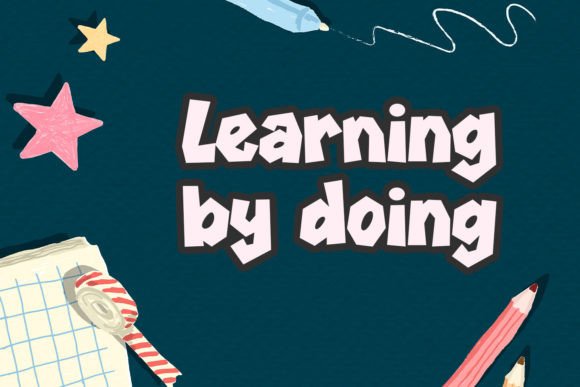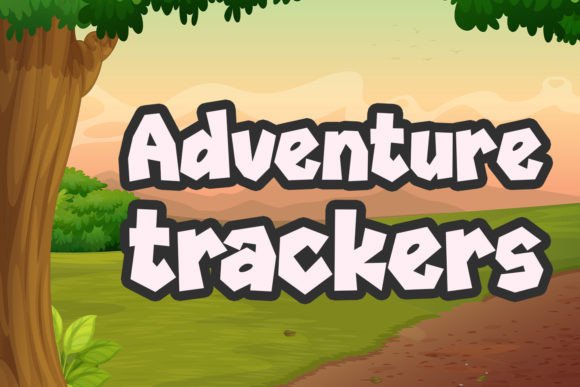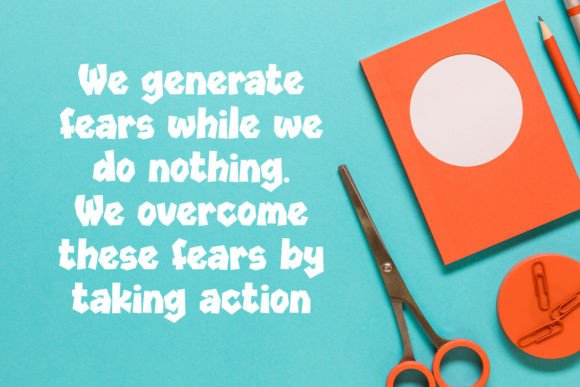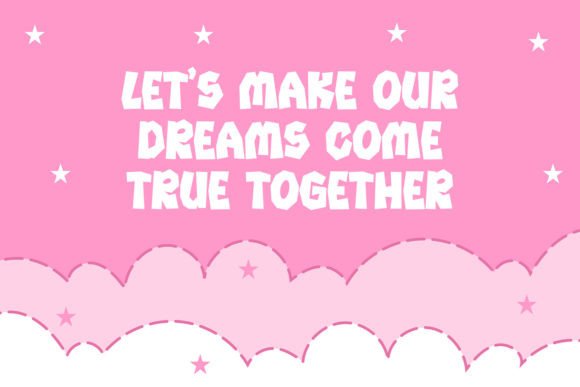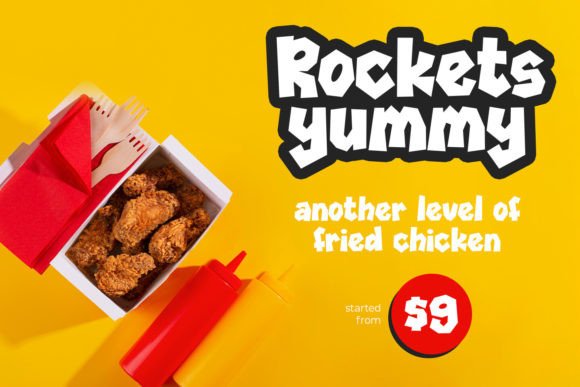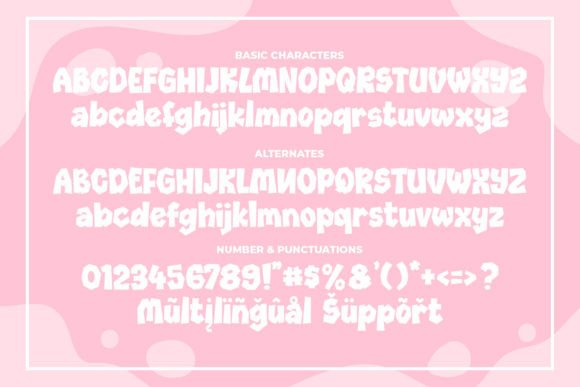
Introduction to Gamelock Font Font
Fonts play a crucial role in design, and the Gamelock Font font is a typeface that brings both character and versatility to any project. Whether you’re working on a branding project, a website, or a print design, the Gamelock Font font offers a unique style that can elevate your work.
Gamelock is a fun and playful font with bold, rounded letters.
It has a friendly, energetic look, making it perfect for games, kids’ projects, or anything that needs a cheerful, lively style The letters are easy to read and full of personality.
Key Features of Gamelock Font Font
Why Choose Gamelock Font Font?
The Gamelock Font font is more than just a typeface – it’s a design tool that helps you communicate your message with style and clarity. Its unique character set and versatile design make it suitable for a wide range of applications, from elegant invitations to bold headlines.
With its carefully crafted letterforms and balanced proportions, the Gamelock Font font ensures readability and visual appeal across all mediums.
What makes Gamelock Font font special?
The Gamelock Font font stands out with its unique design, exceptional readability, and versatility across various design applications.